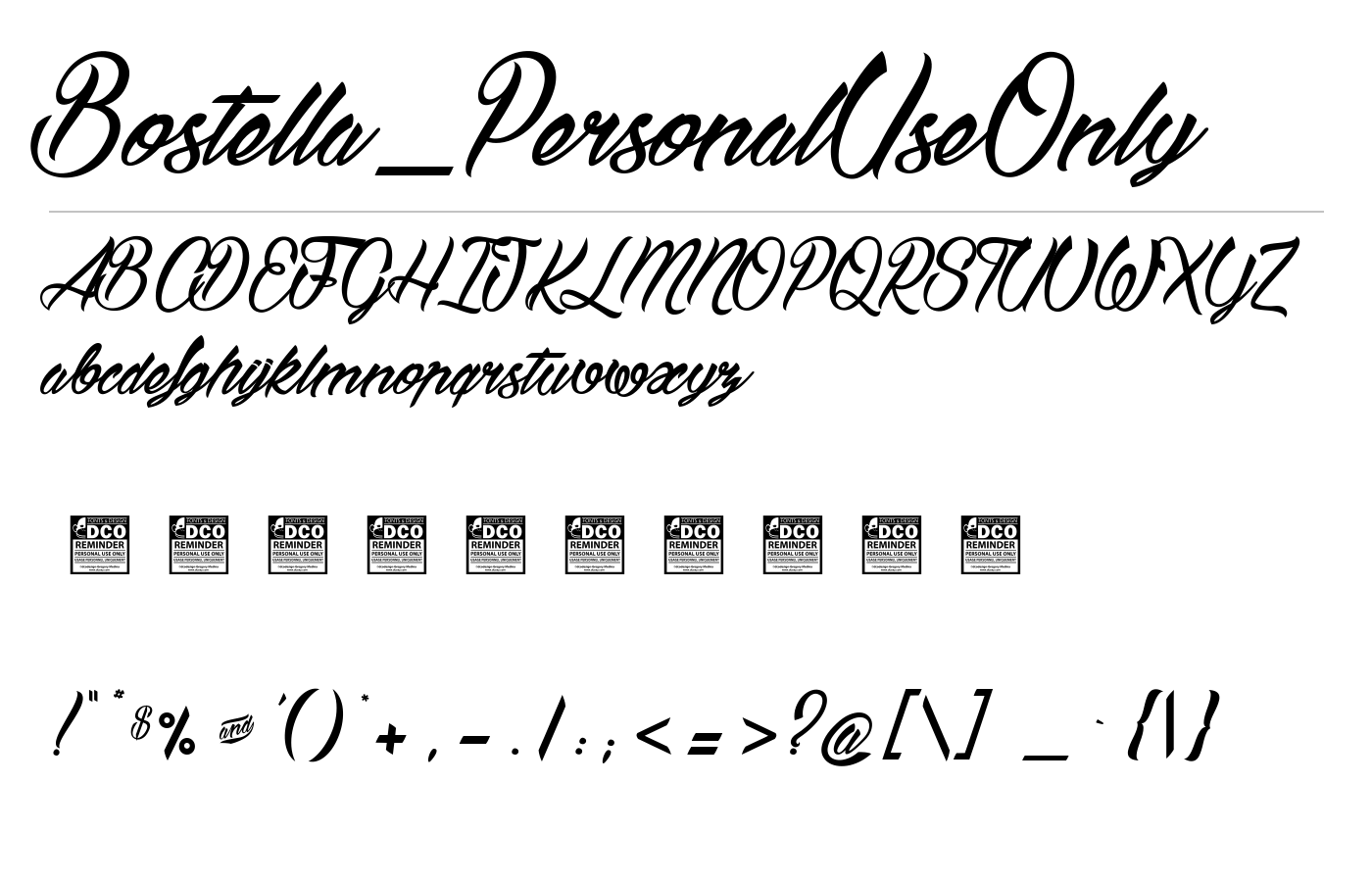
Bostella_PersonalUseOnly is an elegant script font with a smooth, flowing style that combines both classic calligraphy and modern cursive forms. Its moderate contrast strokes and slightly condensed letterforms give it a refined, sophisticated feel, making it ideal for luxury branding, invitations, and headlines where a personal, stylish touch is desired. This font works beautifully in creative projects that require a graceful yet approachable handwritten look.